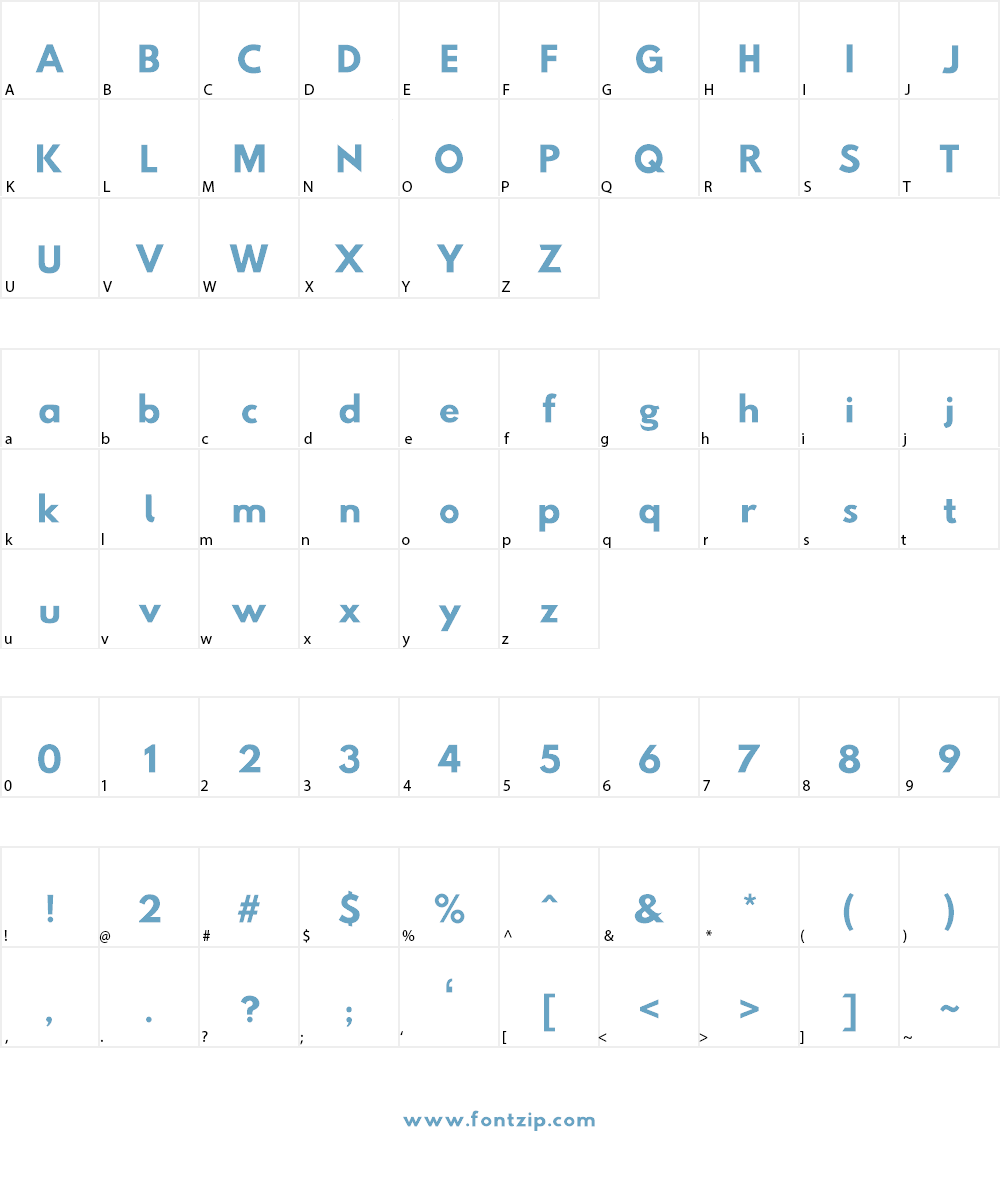
Hussar Tani is an older Hussar variant (from 2016, when Cannot Into Space Fonts was still our foundry name) that was previously exclusive to our OneDrive page. It was released as a comical "Ink saving" variant (due to being smaller than normal) that was going to be released on April Fool's day 2016 but was not released then.